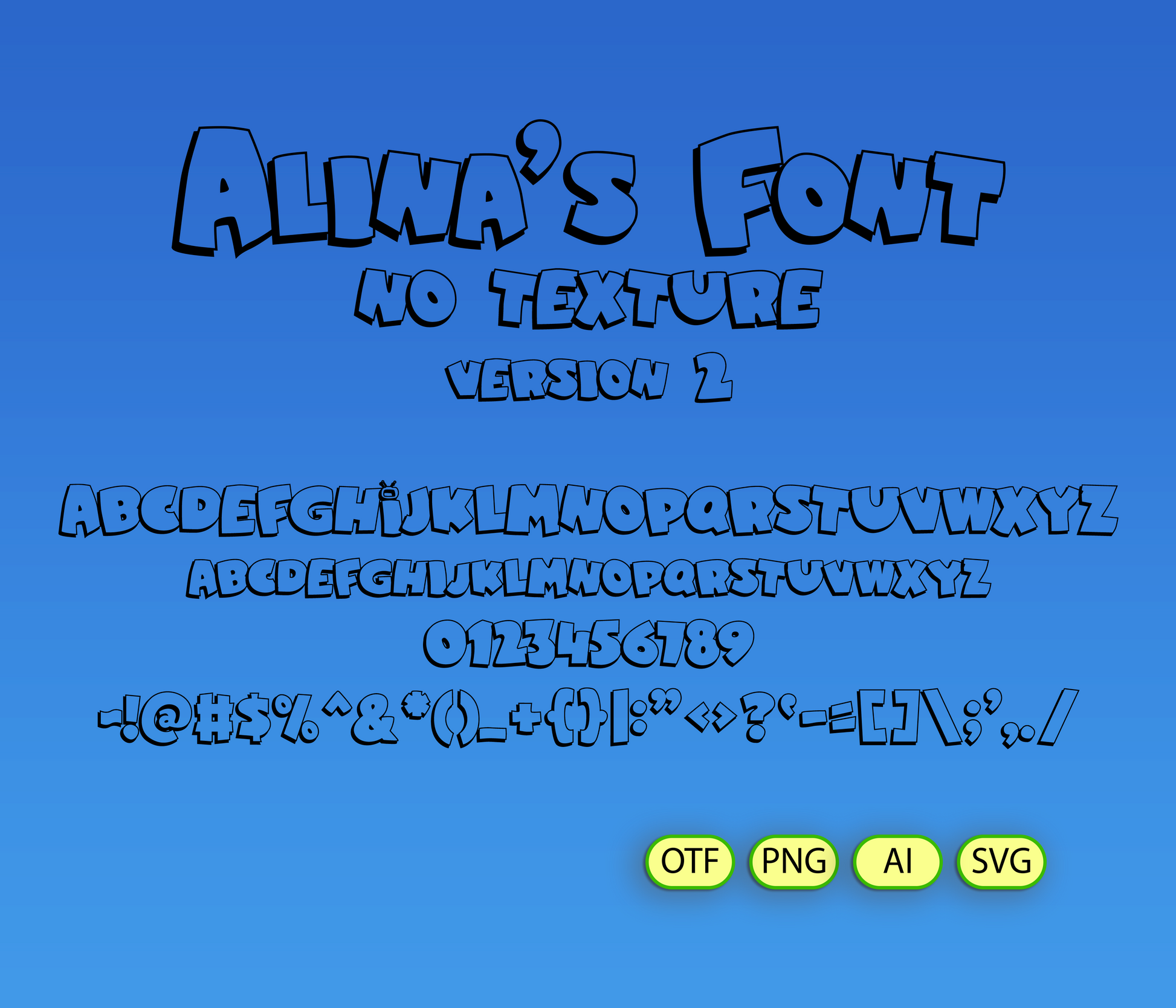
Funny Family Sitcom Font
Step into the world of animated suburban humor with our specially designed font, capturing the essence of Rhode Island's most notorious cartoon clan. Perfect for fans of irreverent comedy, content creators, and designers who appreciate witty satire, this font brings the dynamic spirit of Quahog's favorite family to your projects.
What's This Font All About?
Our font embodies the spirit of modern animated comedy with its bold, playful letterforms reflecting the show's distinctive style. Each character is crafted to capture that perfect blend of humor and charm that made this series a cultural phenomenon.
Creative Applications
1. Meme Creation: Design shareable content for social media
2. Fan Art Projects: Perfect for tribute artwork and creative designs
3. Party Materials: Create invitations for comedy-themed gatherings
4. Digital Content: Enhance blogs and social media posts
5. Themed Merchandise: Design t-shirts, mugs, and collectibles
6. Event Signage: Create banners for viewing parties
7. Personal Projects: Add humor to DIY crafts and scrapbooks
8. Stream Overlays: Perfect for gaming and content creation